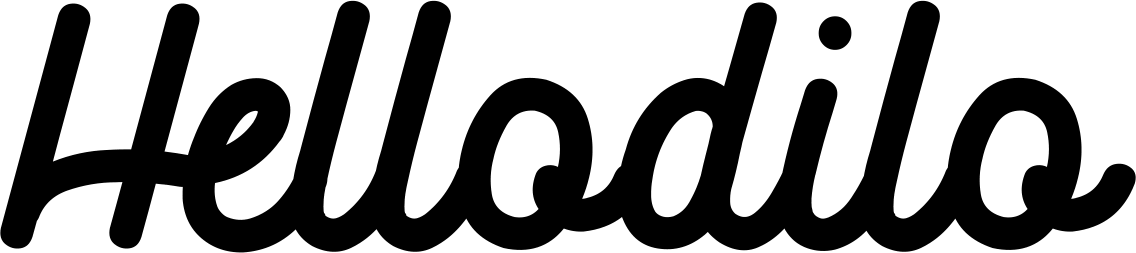
Hellodilo Font
Using a cursive font like Hellodilo is one of the main principles of producing high-efficiency content that can engage the audience with your graphic work in the shortest possible time.
The edges of the characters in this old-school font are round and angled, it conveys a sense of intimacy and comfort that makes it ideal for use in web pages, automotive, posters, and prints on dishes.